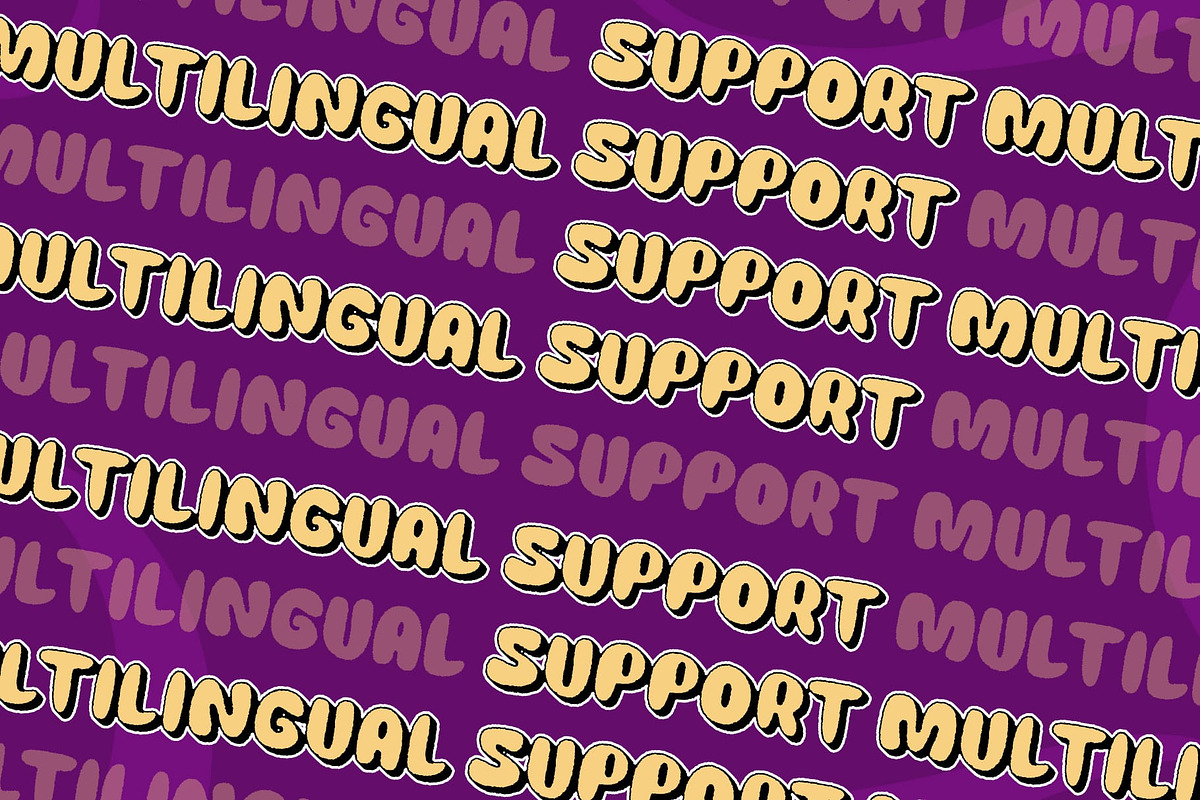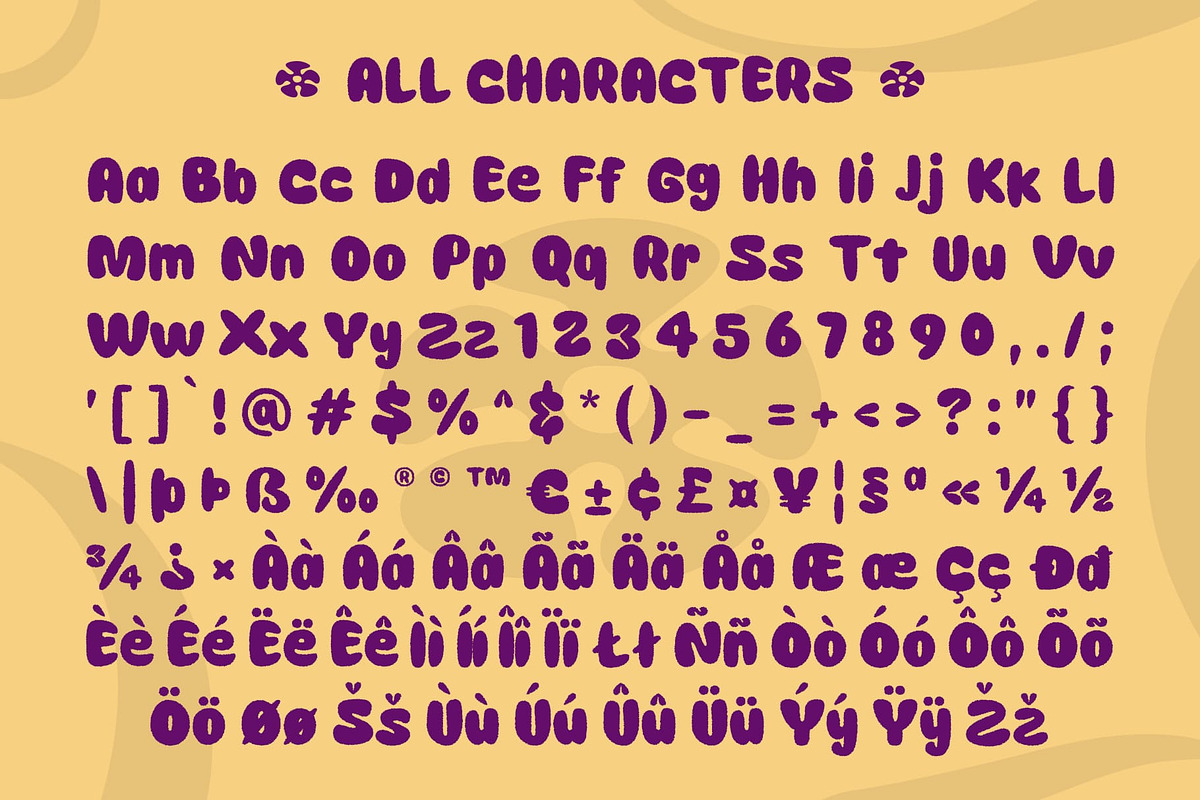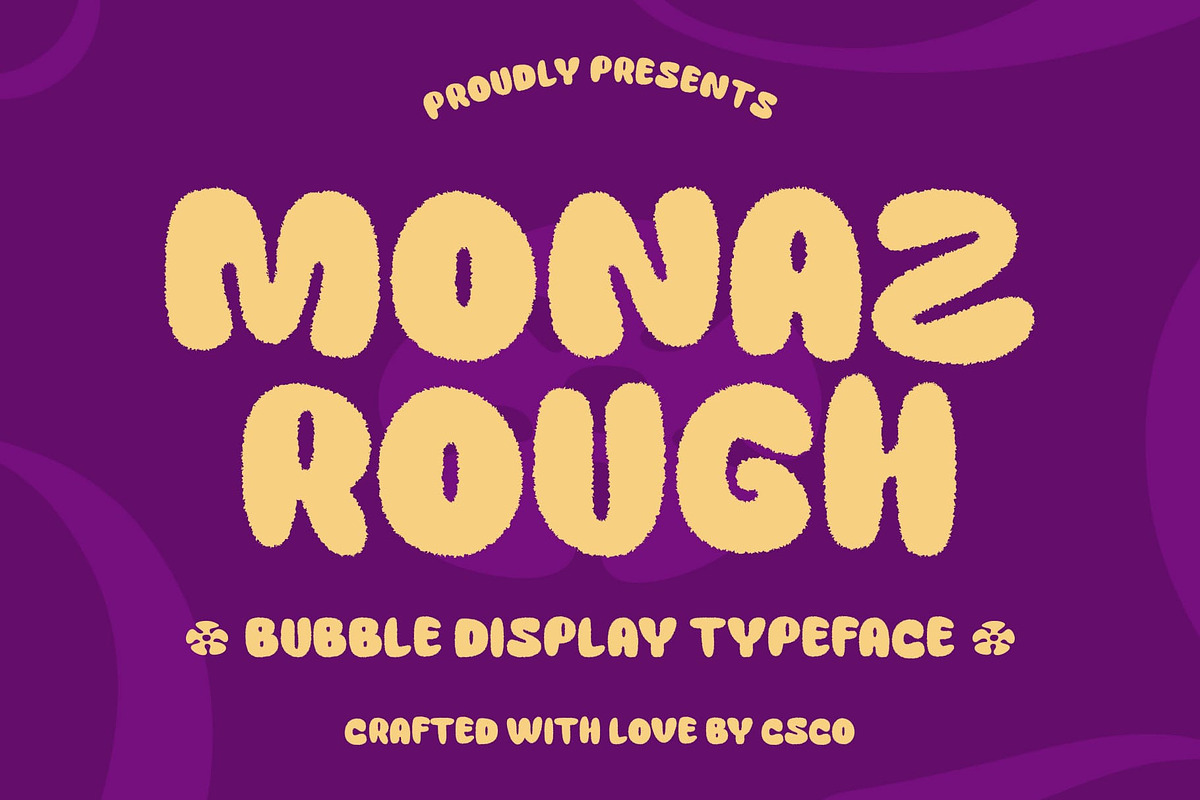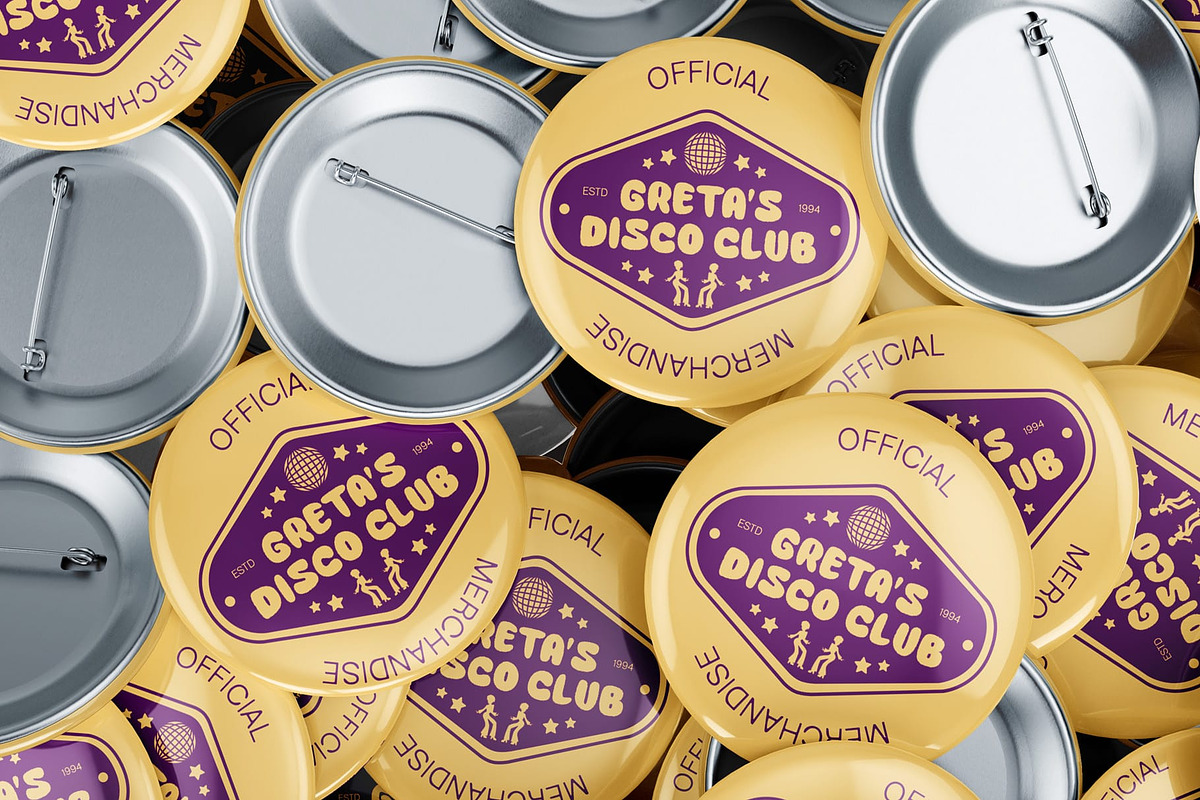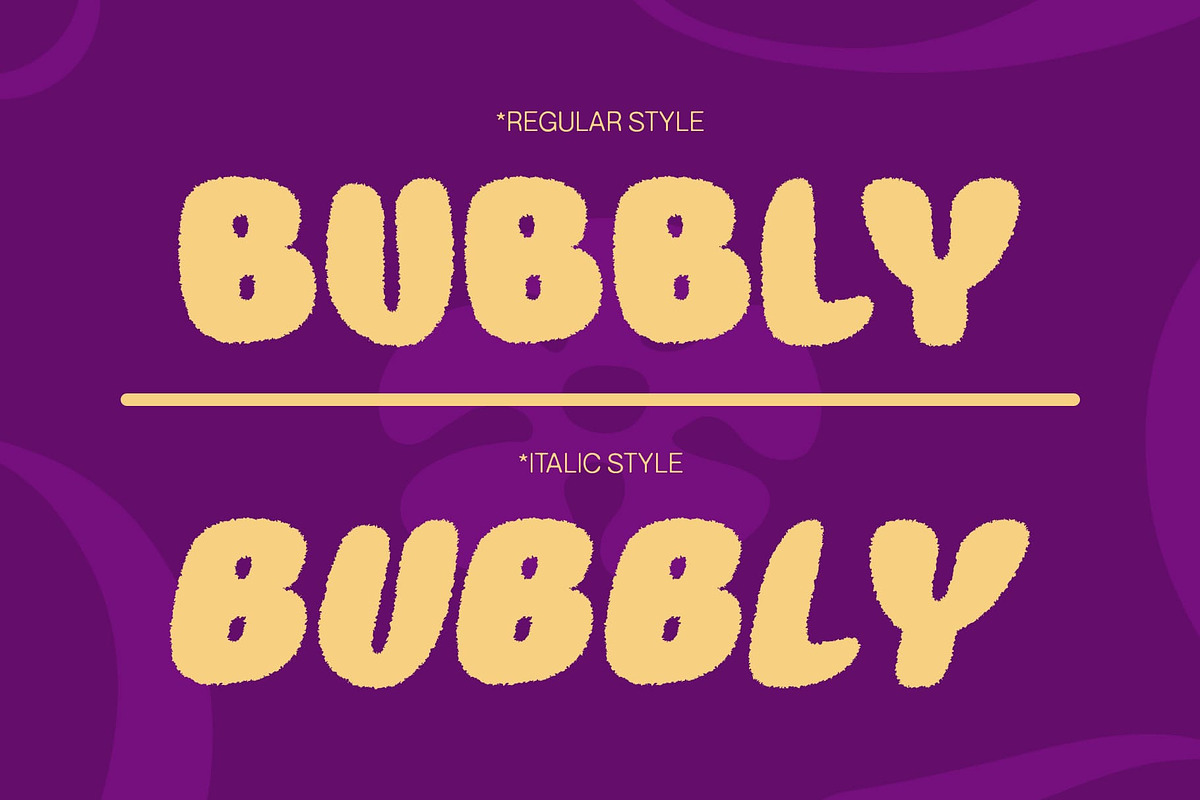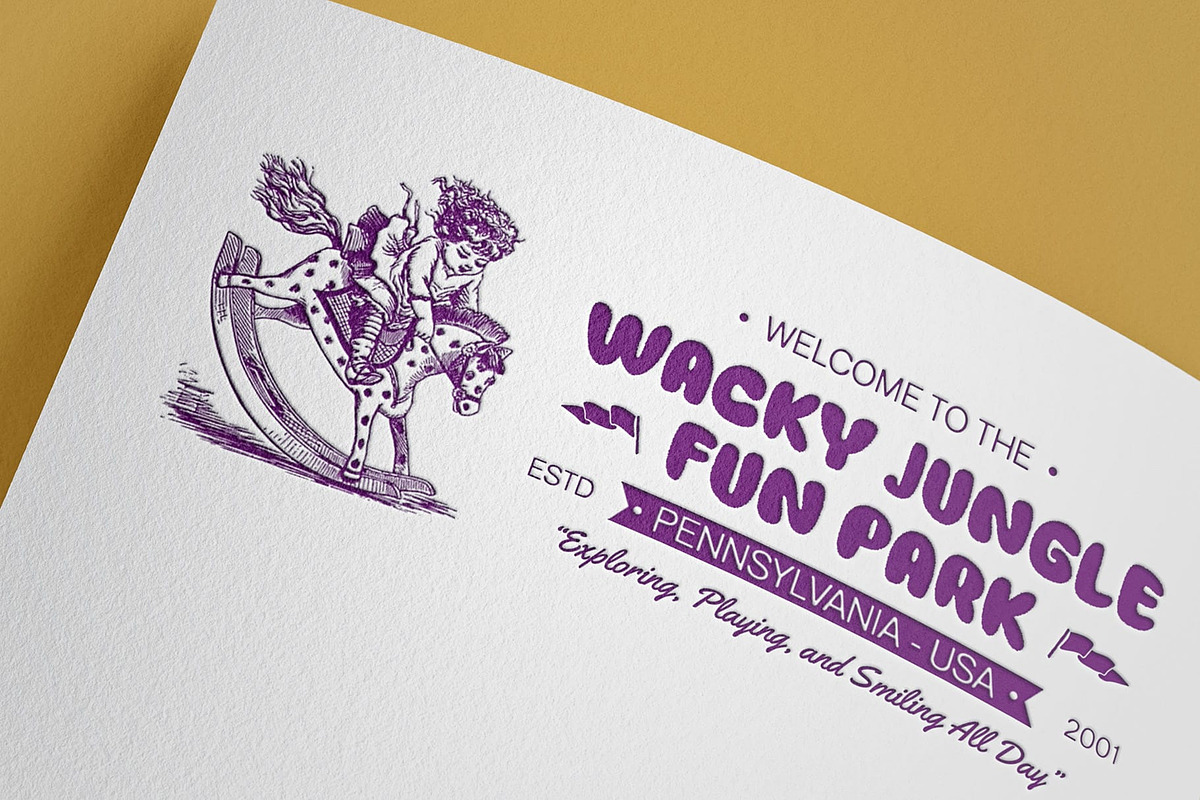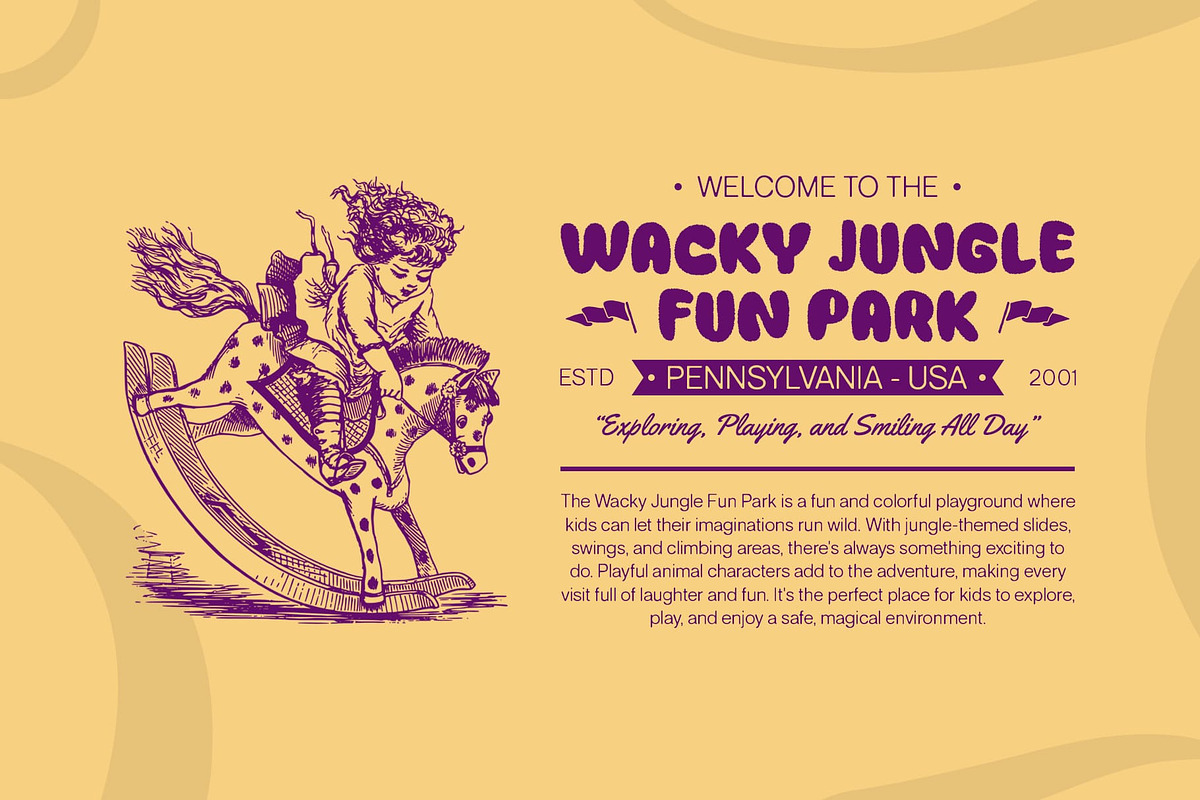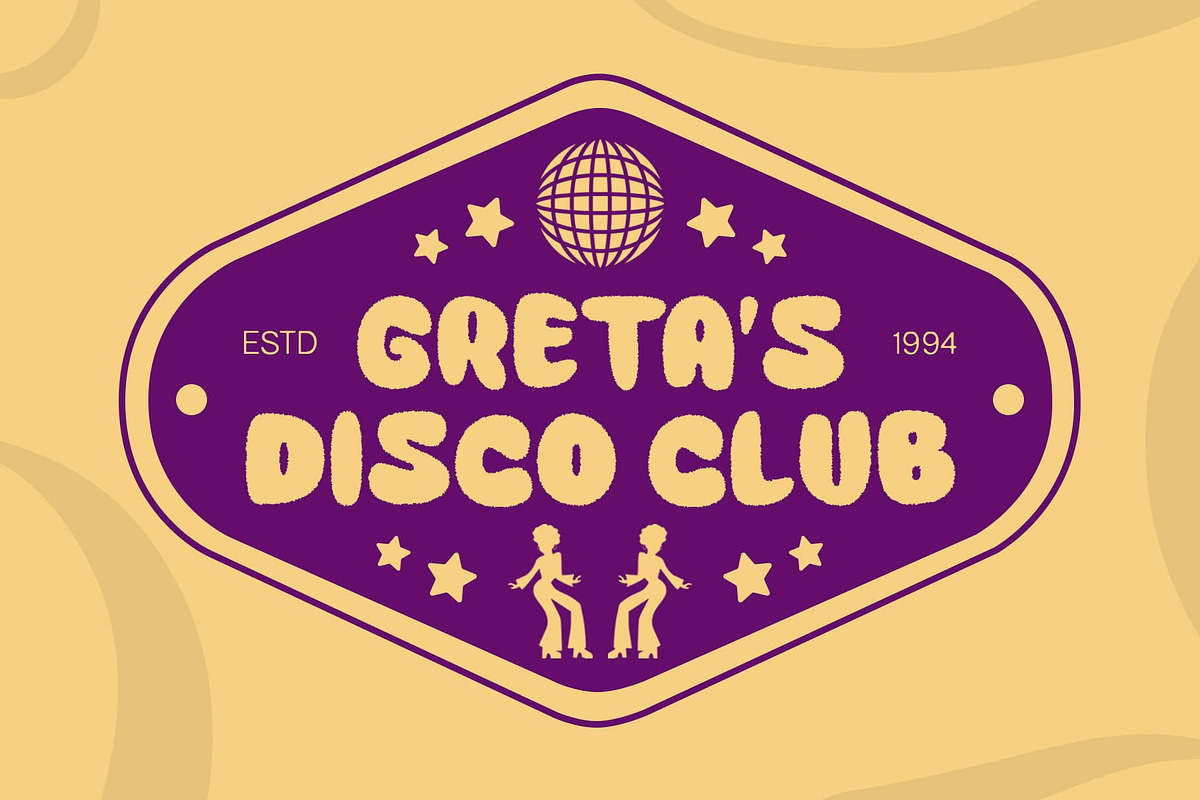
Monaz Rough
Monaz Rough Font: A Bold Bubble Display Font
Captivating and Cheerful Design Monaz Rough is a bold bubble display font that radiates cute, funky, and cheerful characteristics, making it an ideal choice for a wide range of creative projects. Its soft, rounded shapes and thick forms capture attention effortlessly, creating a fun and inviting atmosphere that draws viewers in. This font embodies a sense of joy and playfulness, perfect for designs that aim to engage and delight.
Dynamic Texture and Expressive Feel The unique layered rough effect applied to Monaz Rough enhances its visual appeal, adding dimension and texture that results in a more dynamic and expressive design. This characteristic not only enriches the font’s personality but also elevates any project it adorns. The playful shapes and bold design work harmoniously to create a font that stands out, ensuring that your messages are conveyed with enthusiasm and flair.
Versatile for Creative Applications Monaz Rough is particularly well-suited for various applications, including posters, packaging, and promotional materials, where visual impact is essential. Its ability to convey joy and uniqueness makes it a perfect fit for products targeting a younger audience or projects focused on creativity, fun, and innovation. The font adapts beautifully across both print and digital formats, ensuring that your designs remain vibrant and engaging.
- Monaz Rough Regular
- Monaz Rough Italic